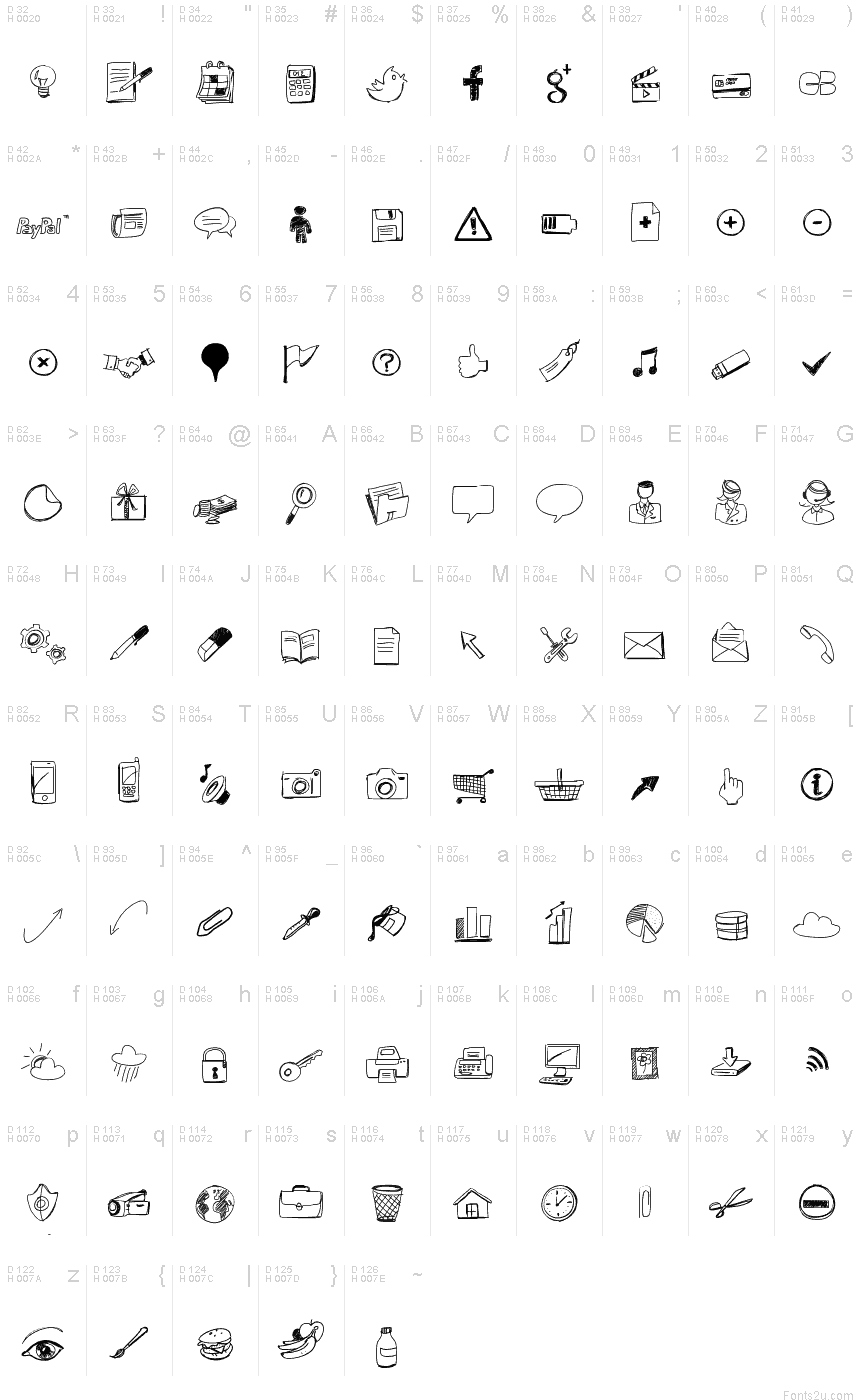
SketchIconsbold Font
Sketch Icons Bold by Infographiste is a free hand-drawn symbol font covering familiar tools, devices, people, weather, and office objects. Uneven black contours and small gaps preserve the look of quick marker sketches. The drawings are lively but immediately recognizable.
A friendly software brand or creative studio could use the set for interface graphics, presentation slides, and merchandise. The recurring wobble keeps practical subjects such as folders, cameras, downloads, and settings from feeling sterile. In editorial infographics, the symbols can act as small illustrations for technical topics.
Sketch Icons Bold by Infographiste is a free hand-drawn icon font covering office, technology, and interface symbols.